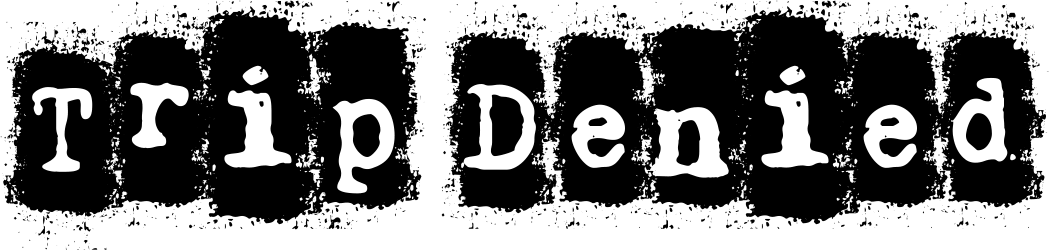
Trip Denied Font
Trip Denied font with vintage style in the uppercase and lowercase letters will give special uniqueness to your design. This font has two different types, hollow and solid. The second type usually takes the readability from the audience.
In each character, a vintage rectangular block border is best used for drawing on the background of street paintings. You can also benefit from this destroy font for book covers and scrapbook designs, even though it does not have number letters.